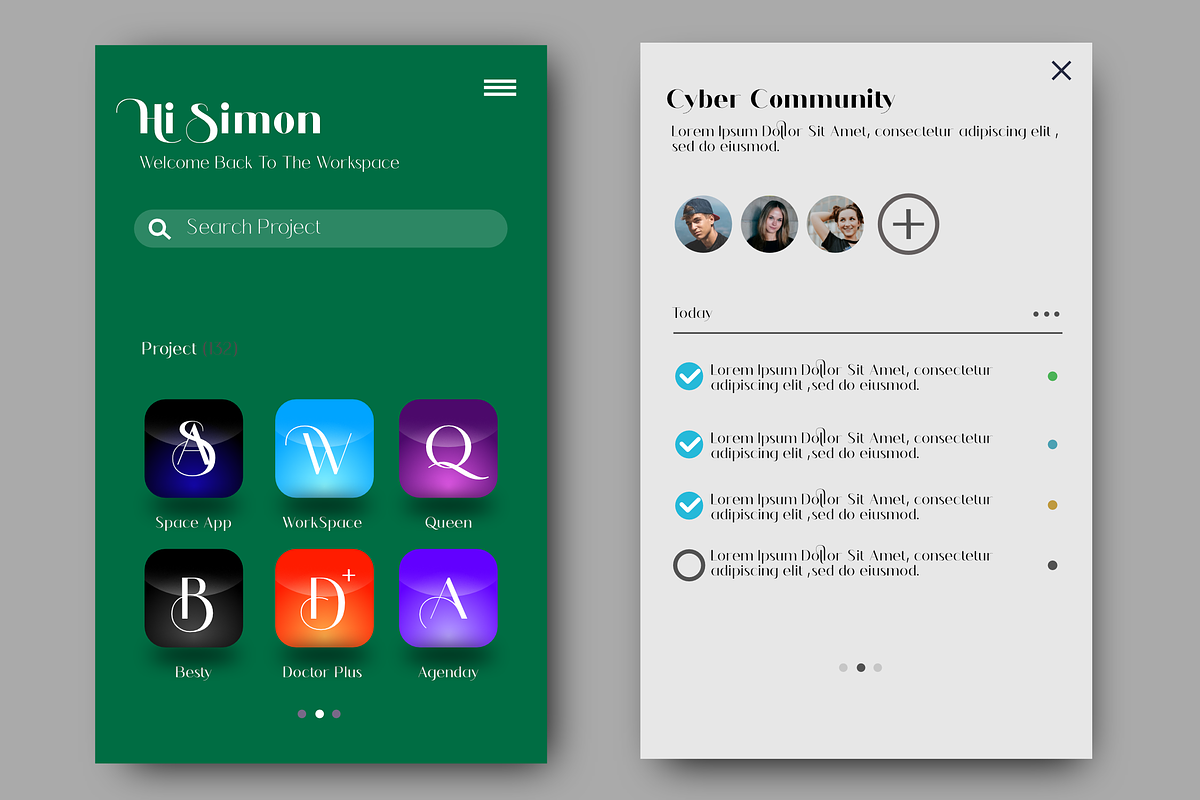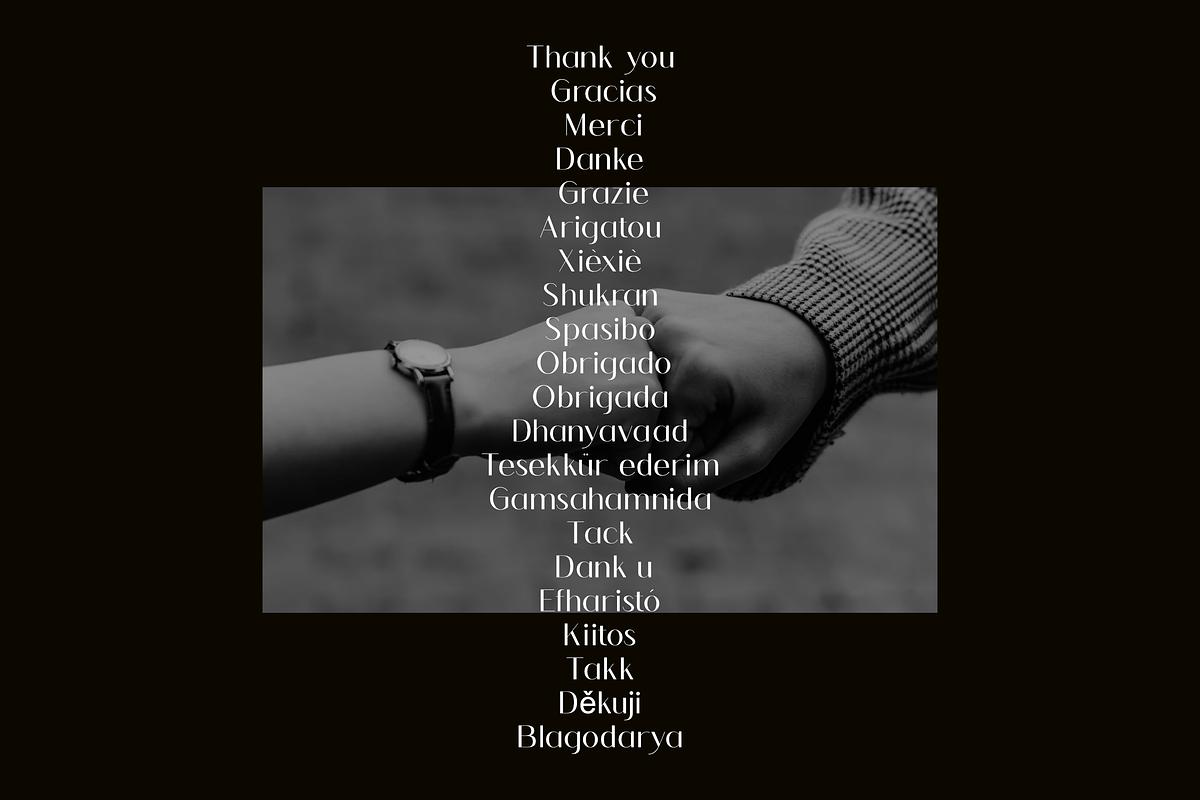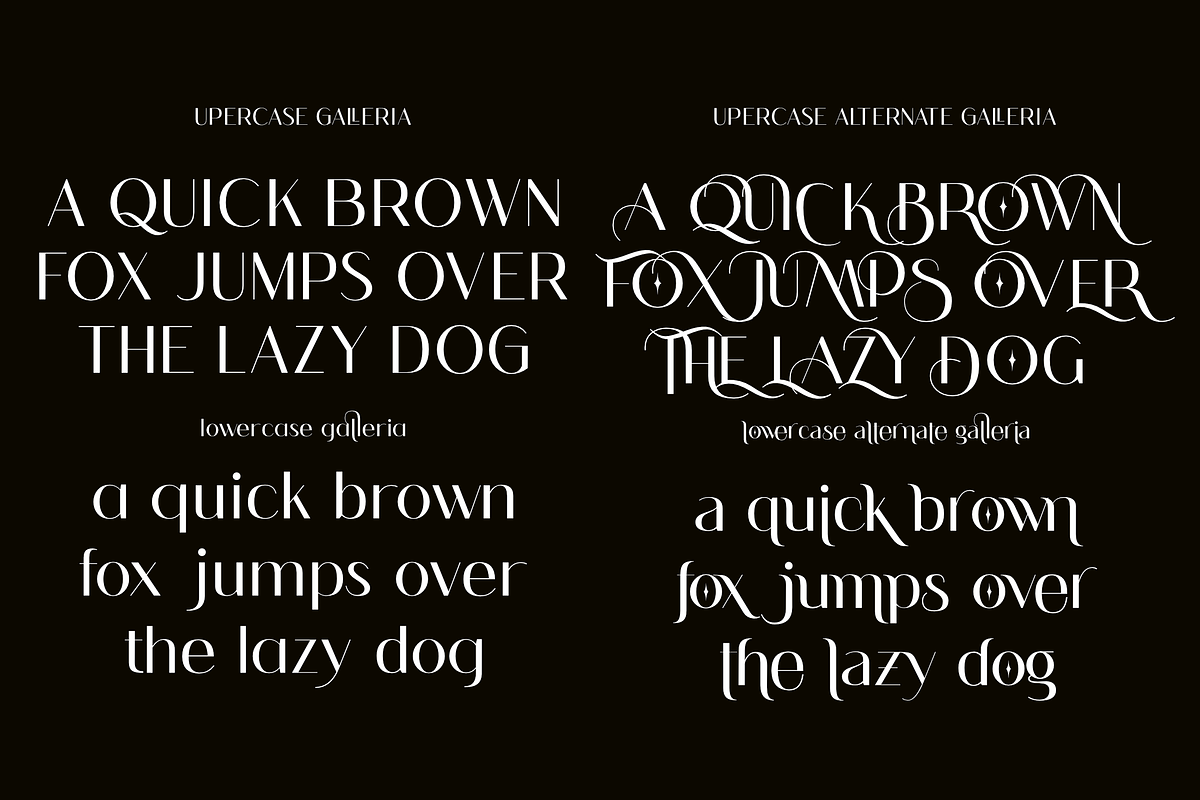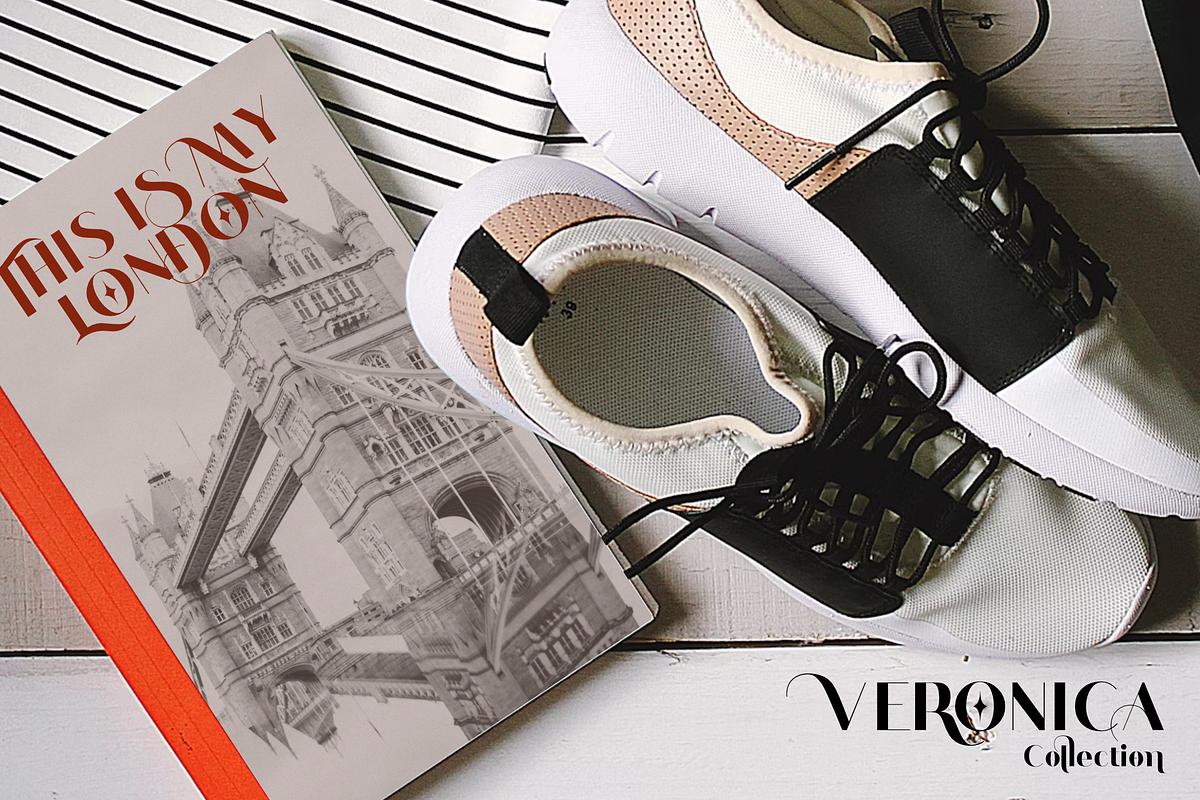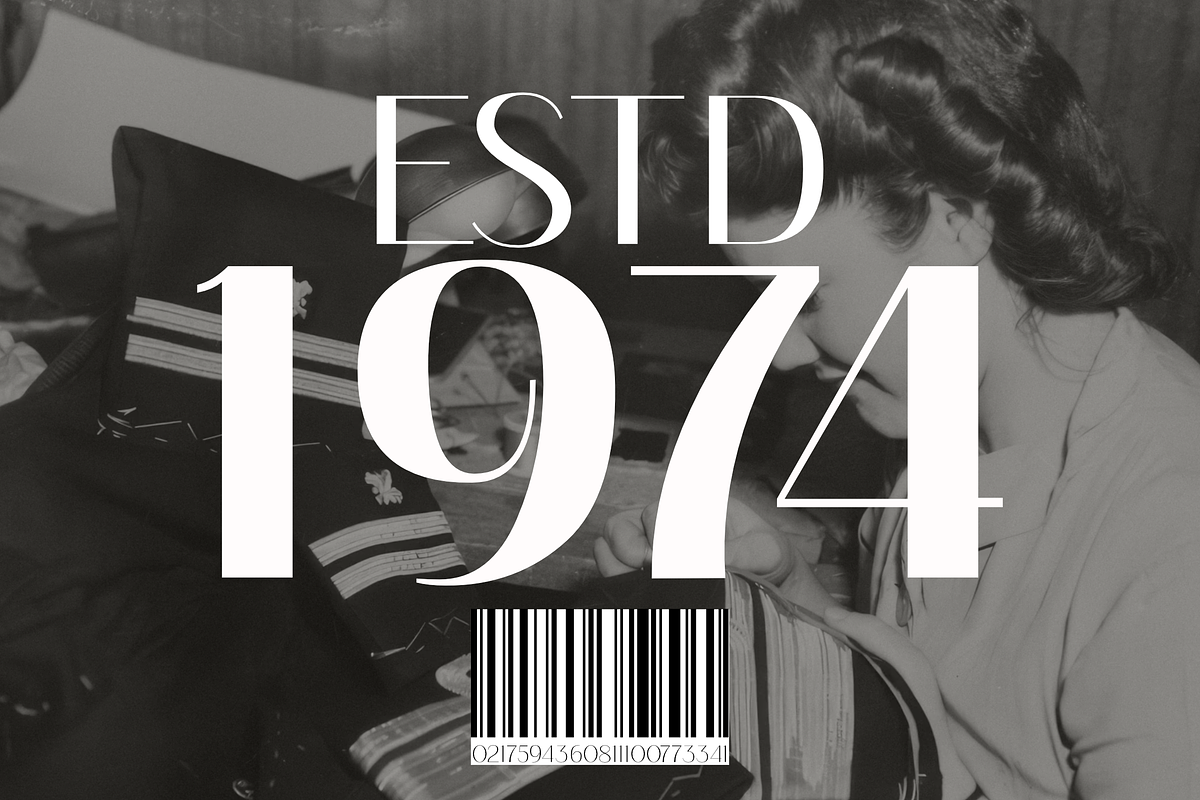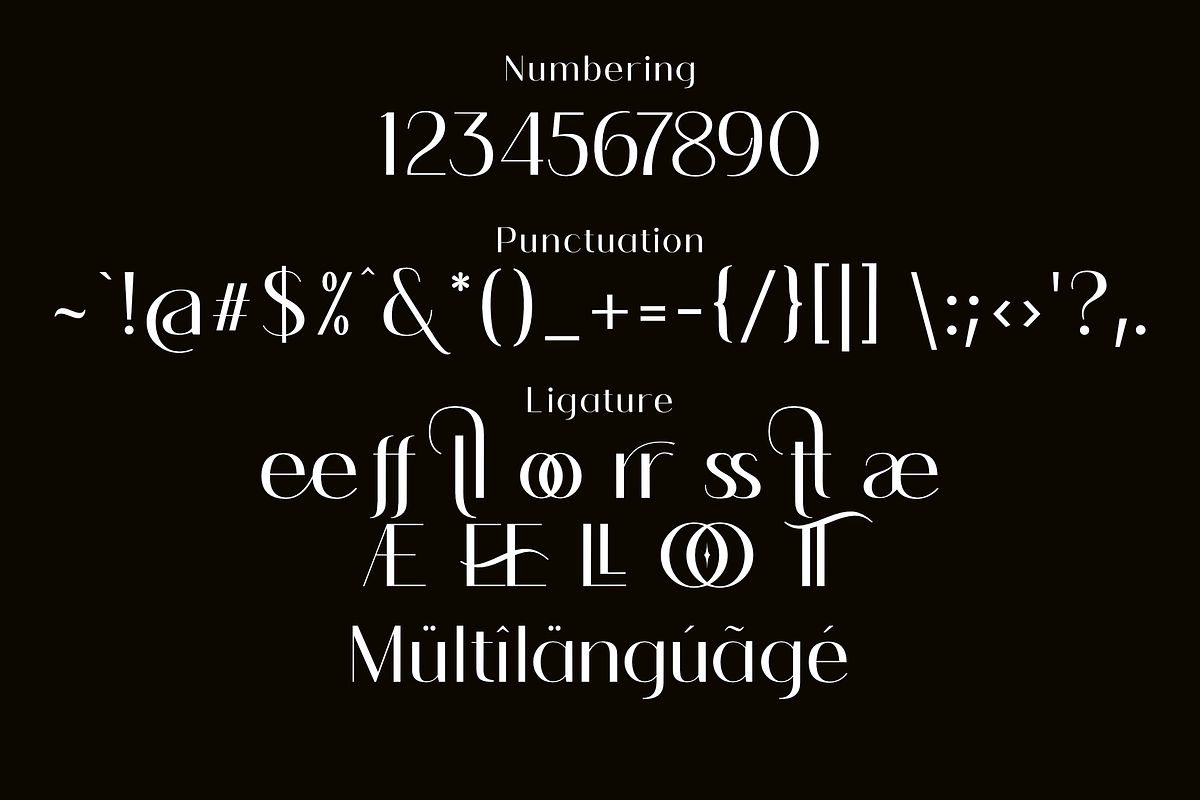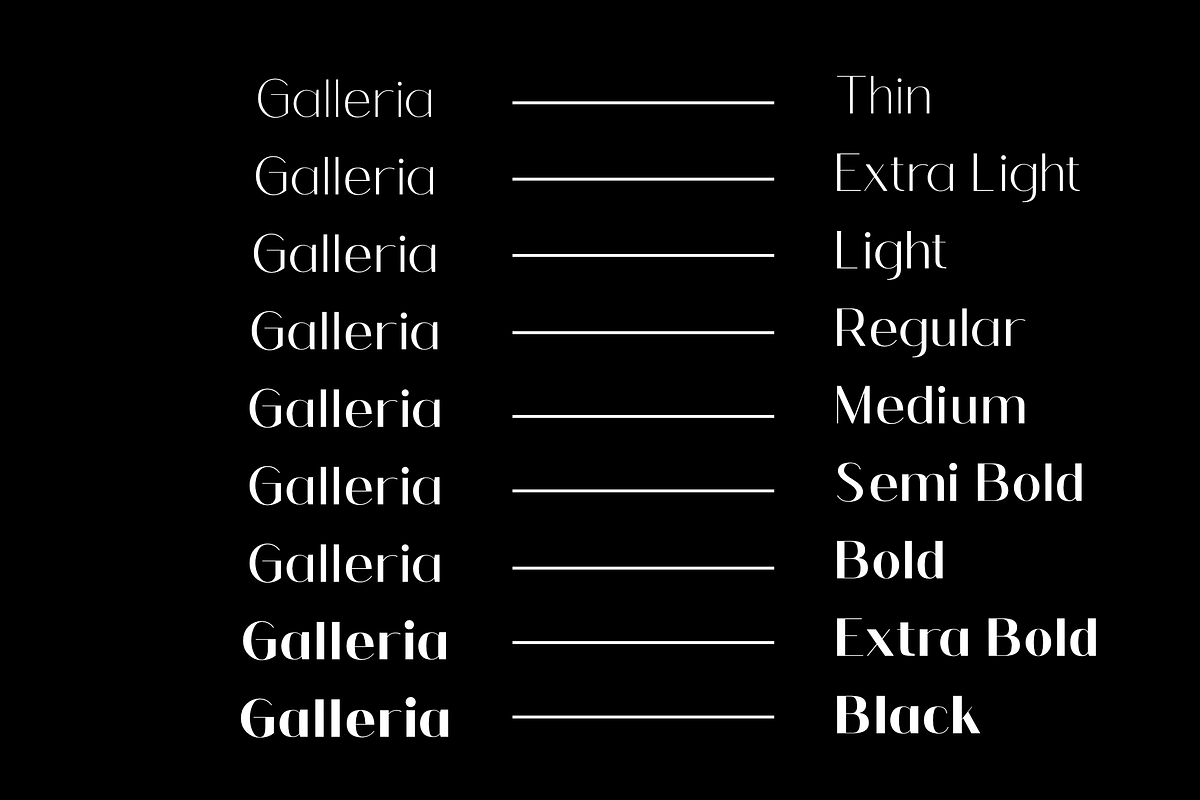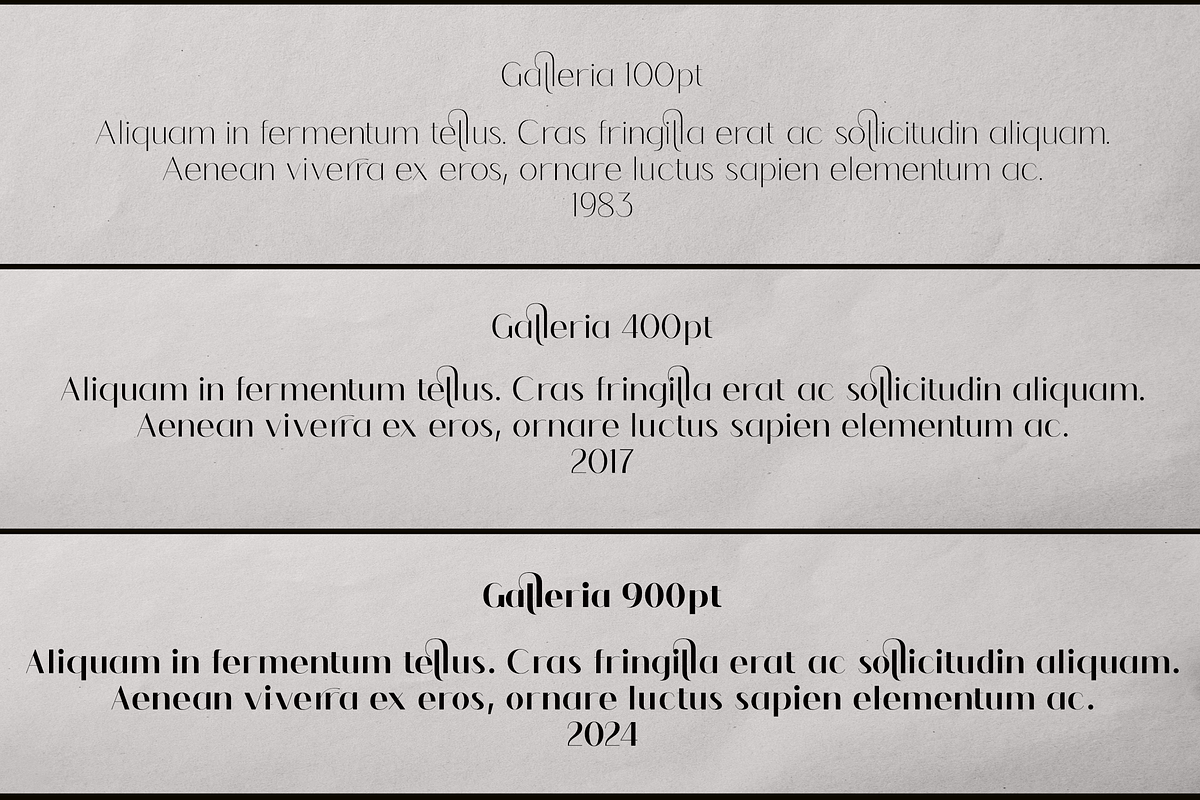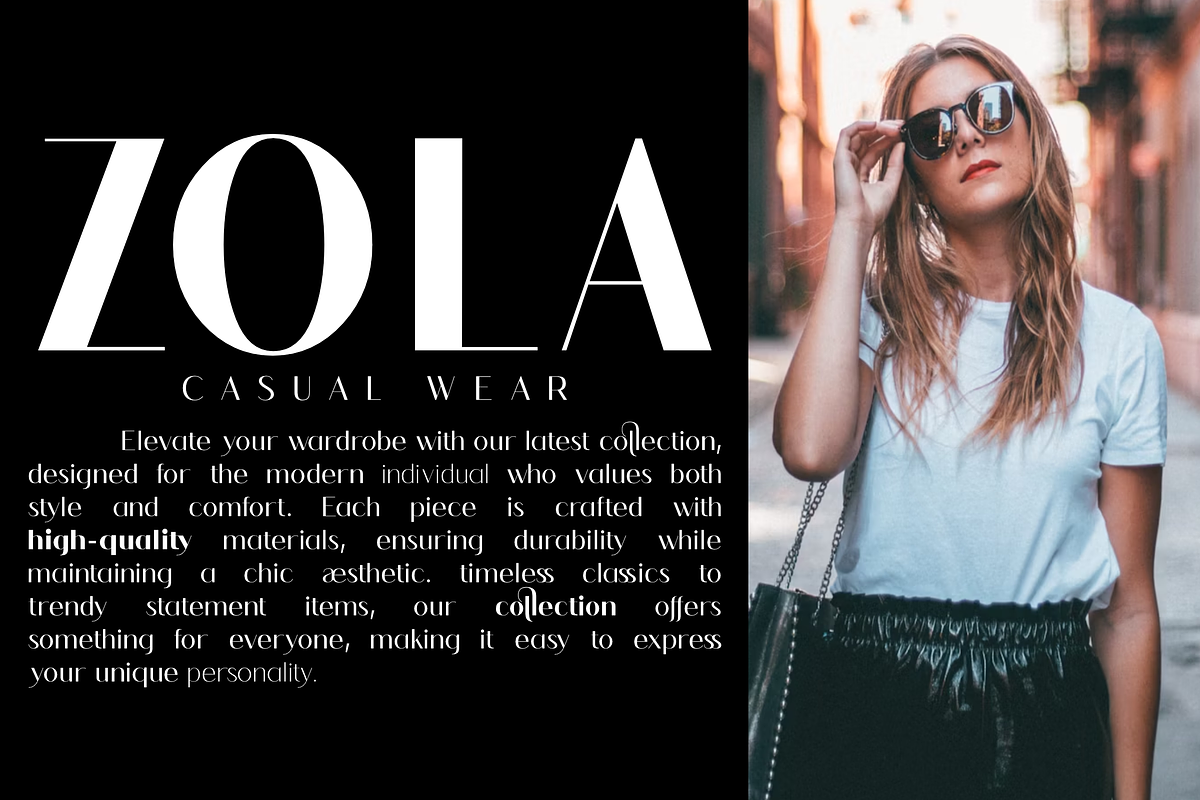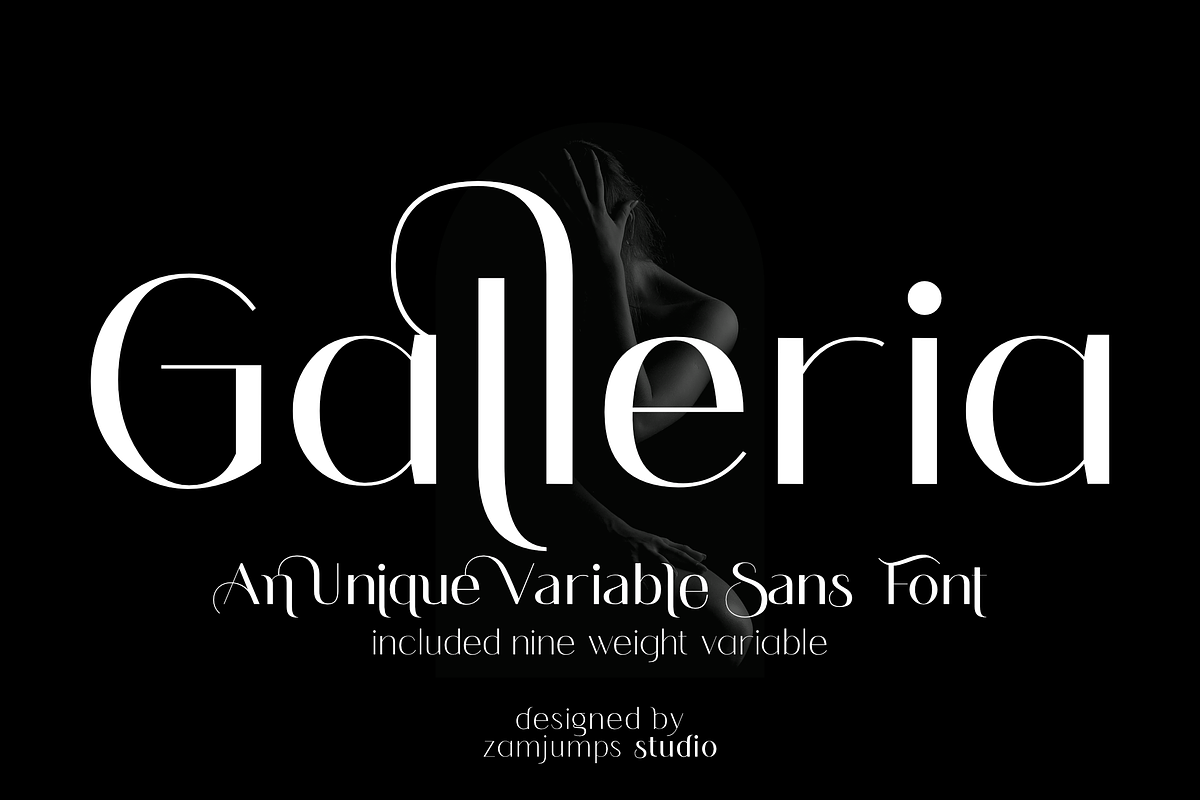
Galleria-An Unique Variable sans
Galleria is a striking variable sans-serif font that offers nine different weights, allowing for versatile applications across a variety of design projects. Its unique style blends modern aesthetics with refined elegance, making it ideal for branding, book writing, headlines, and more. The font features a full set of alternate characters for both uppercase and lowercase, enhancing creative expression and customization. Additionally, Galleria includes carefully crafted punctuation and number options, ensuring clarity and visual harmony in every context. Multiple languages available, of course. With standard ligatures included, Galleria effortlessly enhances the flow of typography, making it suitable for sophisticated design needs. Whether you’re crafting a compelling brand identity or designing an eye-catching editorial layout, Galleria Variable Sans stands out as a versatile choice that elevates any creative endeavor. INCLUDED :